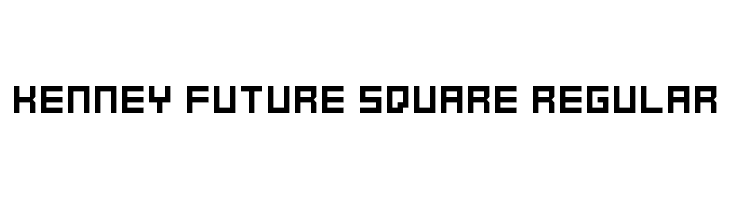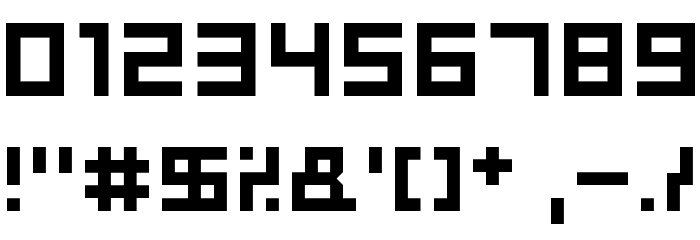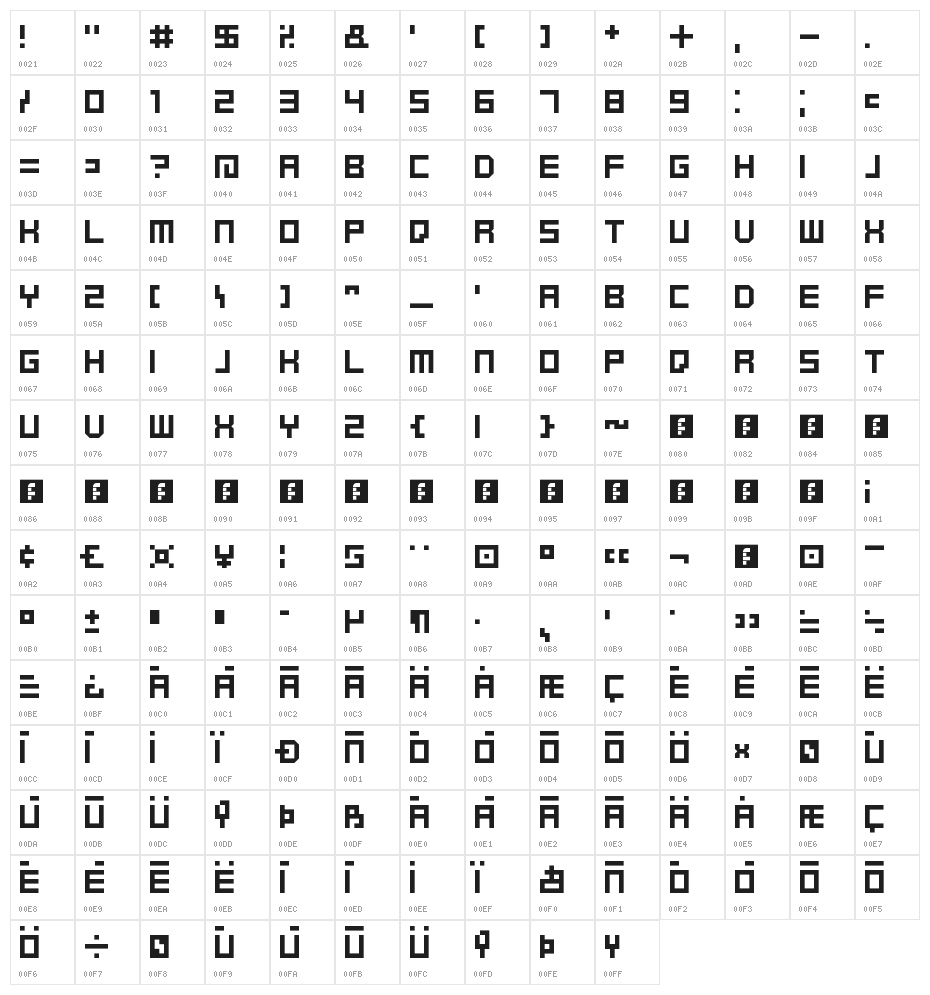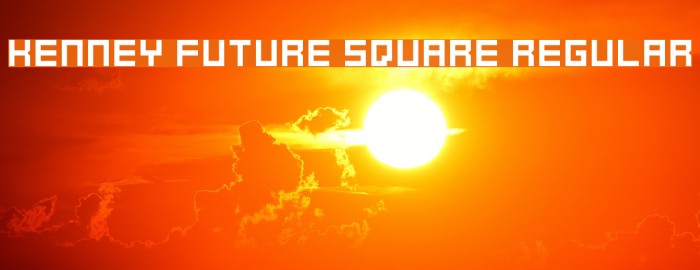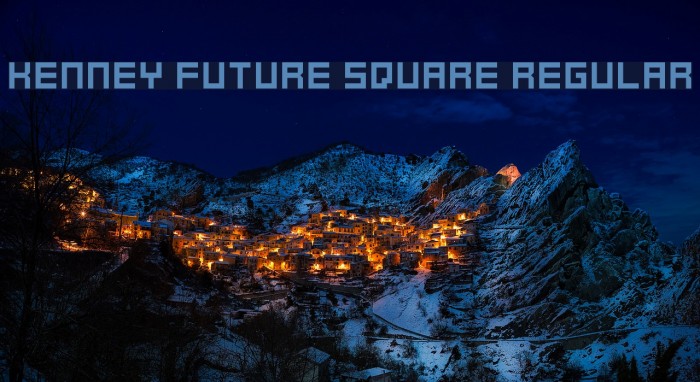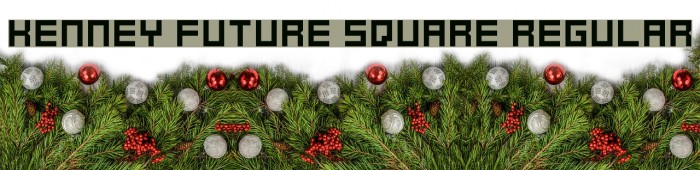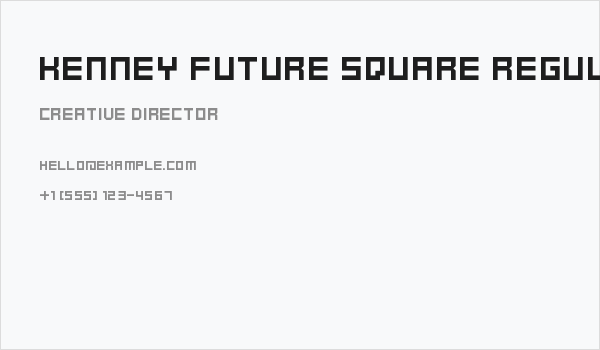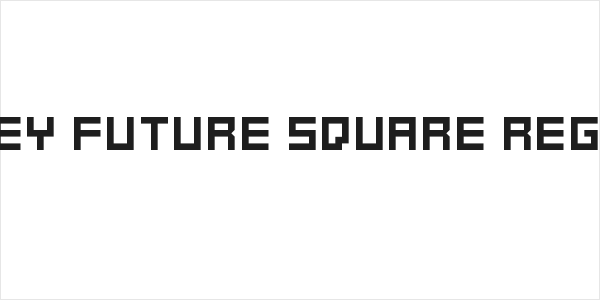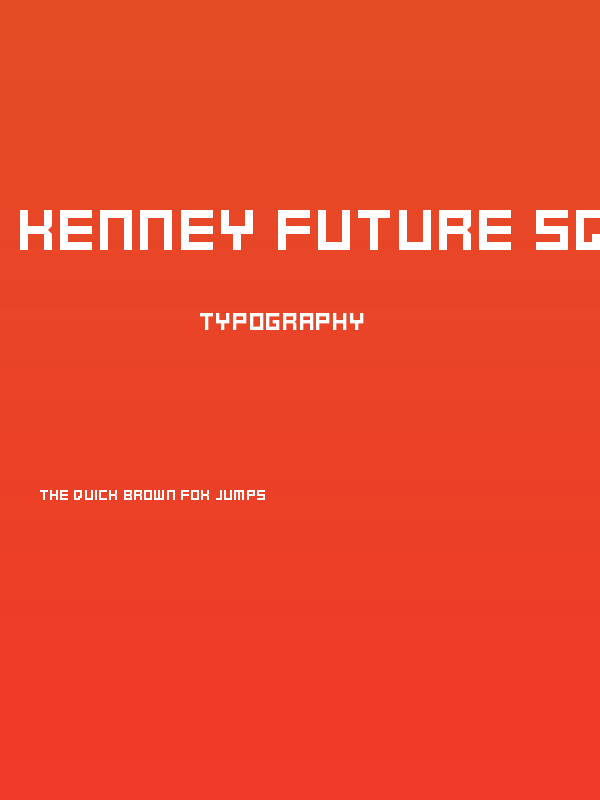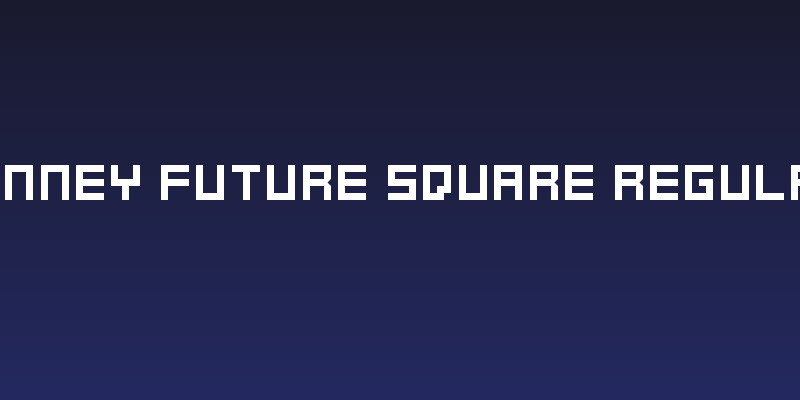
Kenney Future Square Regular Font
Kenney Future Square Regular Description
This font features a futuristic and geometric design, characterized by its square and blocky letterforms. Each character is constructed with uniform line thickness, creating a cohesive and modern appearance. The angular edges and straight lines give it a digital and tech-inspired feel, making it ideal for projects that require a contemporary and clean aesthetic. The font maintains a consistent height and width across all characters, ensuring readability and balance. Its structured and bold presence makes it suitable for attention-grabbing headlines and titles.
| Proposed Projects | Ideal for tech-related branding, video game interfaces, digital media, and modern advertising. |